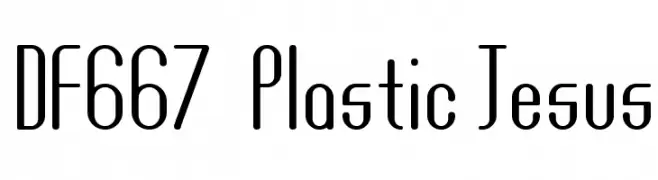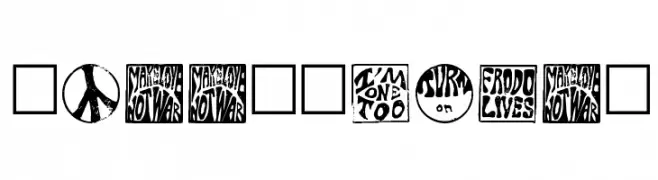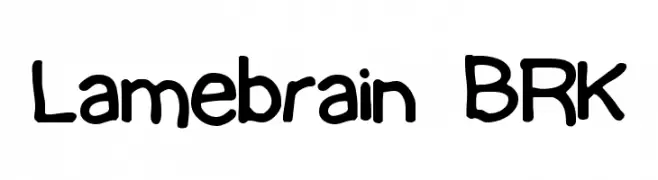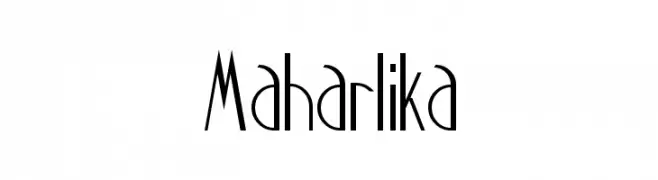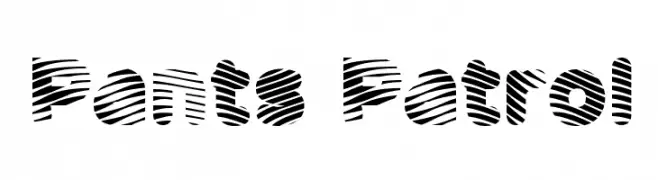
( Fonts by Antonio Bucu - AdamAnt Designs )
A sleek, modern font with tall, narrow characters and high contrast strokes.
( Fonts by Harold Lohner - www.haroldsfonts.com )
A bold, modern font with blocky, uniform characters.
A modern, slanted font with elongated characters and consistent stroke width.
( Fonts by www.aenigmafonts.com )
A playful, handwritten font with bold, rounded characters.